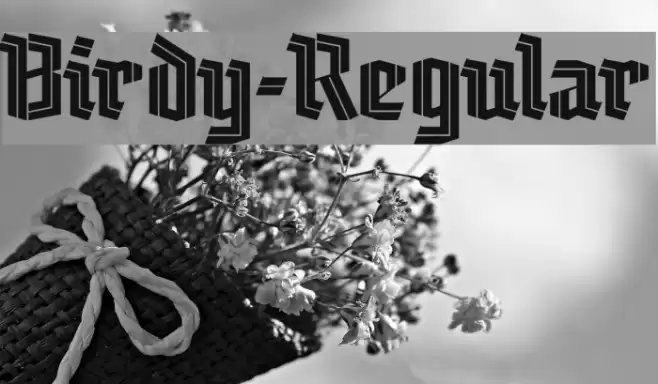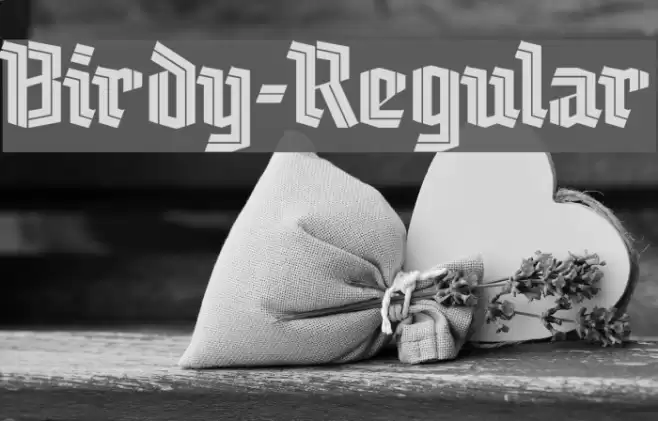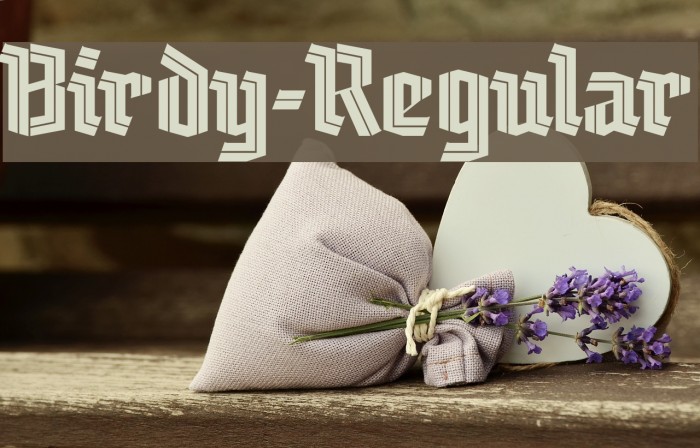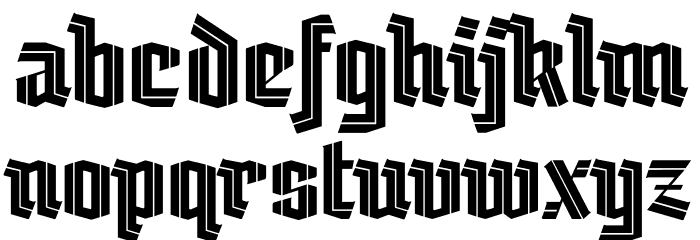
Birdy-Regular Font
Birdy-Regular Description
This font features a bold, geometric design with a strong emphasis on angular lines and sharp edges. The characters are constructed with a three-dimensional effect, giving them a striking, layered appearance. The uppercase and lowercase letters maintain a consistent style, with a unique blend of modern and gothic influences. The font's boldness is complemented by its intricate detailing, making it suitable for eye-catching designs. The numbers and special characters follow the same stylistic approach, ensuring uniformity across all glyphs.
A bold, geometric font with angular lines and a three-dimensional effect from Uncategorized fonts.
- Proposed Projects: Ideal for branding, posters, album covers, and any project requiring a bold, modern aesthetic.